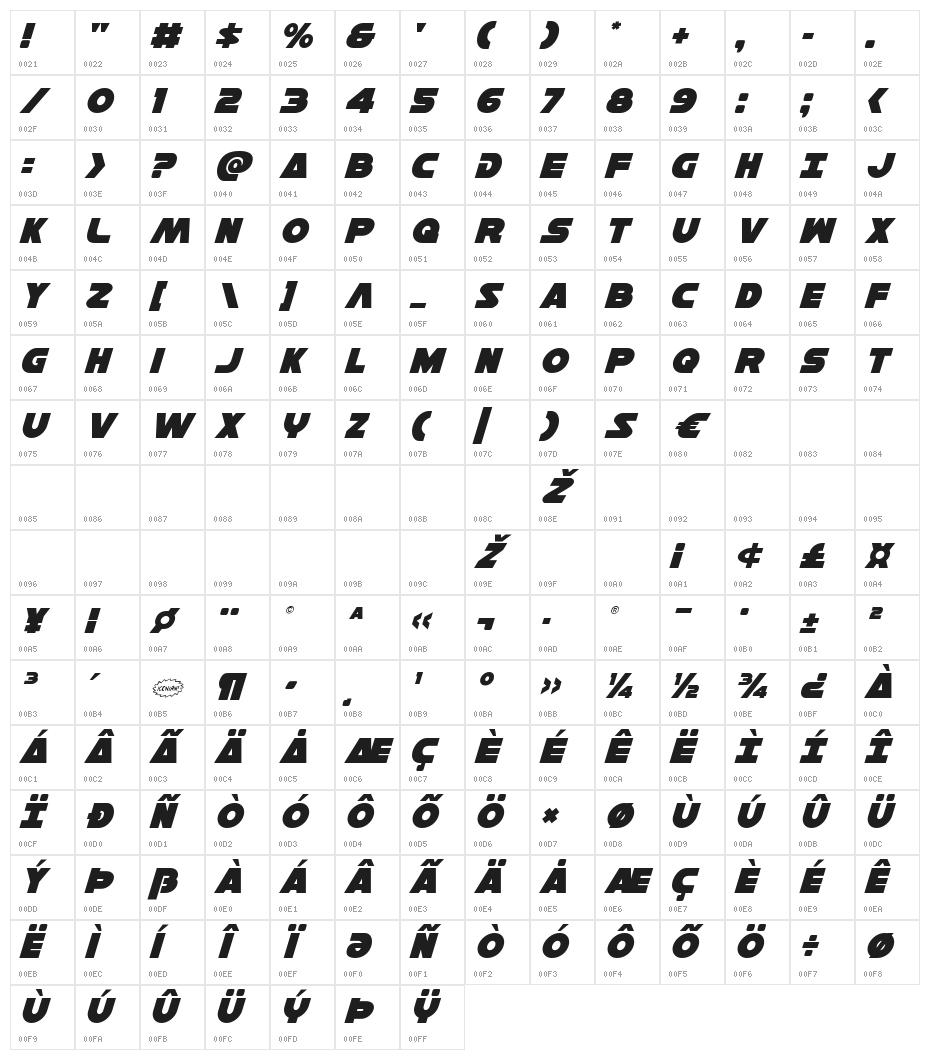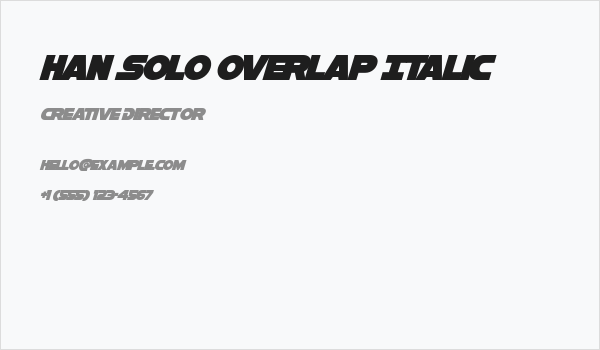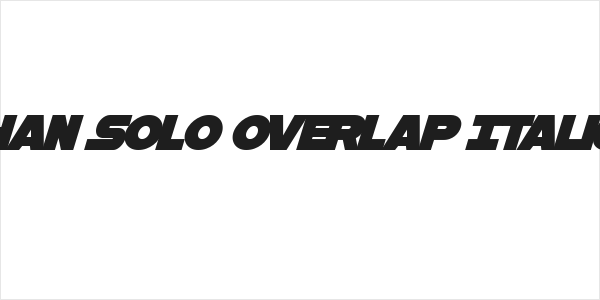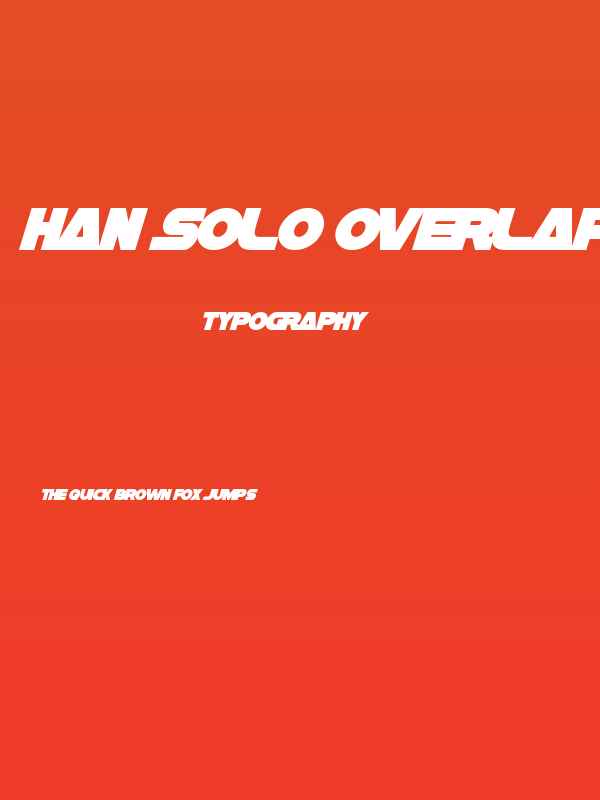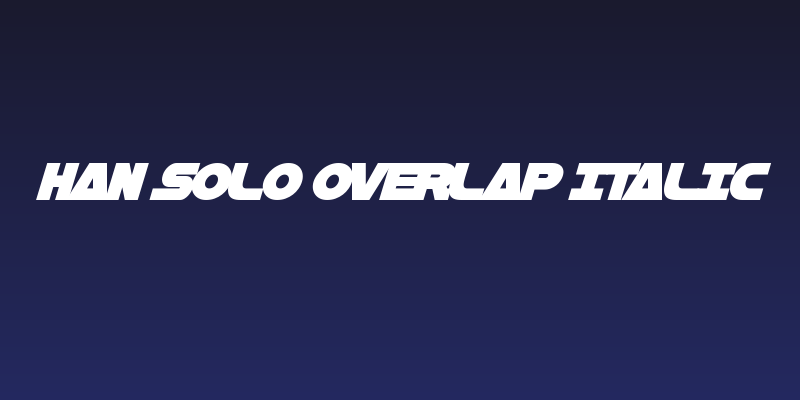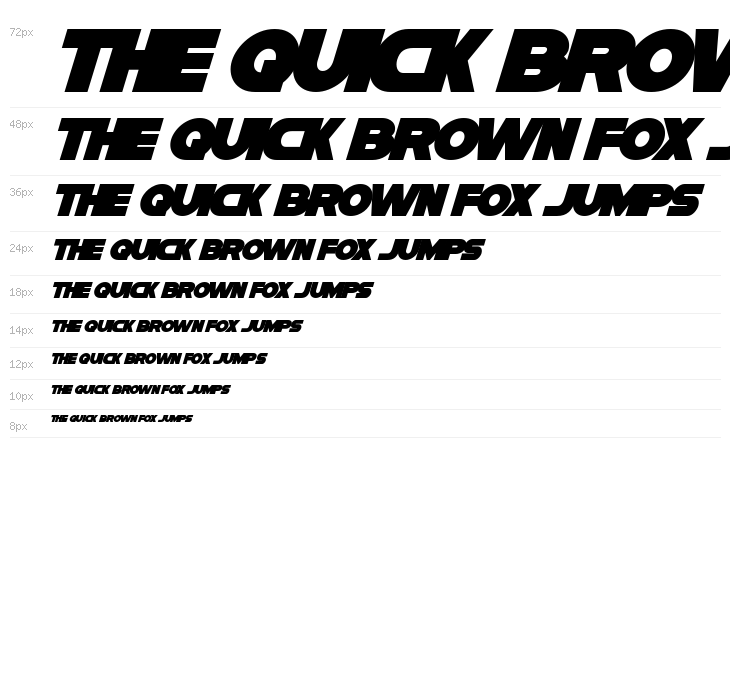
Han Solo Overlap Italic Font
Han Solo Overlap Italic Description
This font features a bold, italicized style with a futuristic and dynamic appearance. The characters are designed with a strong, forward-leaning slant, giving a sense of motion and speed. The strokes are thick and consistent, providing a robust and impactful look. The overall design is sleek and modern, with a slight overlap in some characters that adds to its unique aesthetic. This font is highly legible, making it suitable for various applications where a bold statement is needed.
| Proposed Projects | Ideal for sci-fi themed projects, movie posters, video game titles, and branding that requires a modern and bold look. |